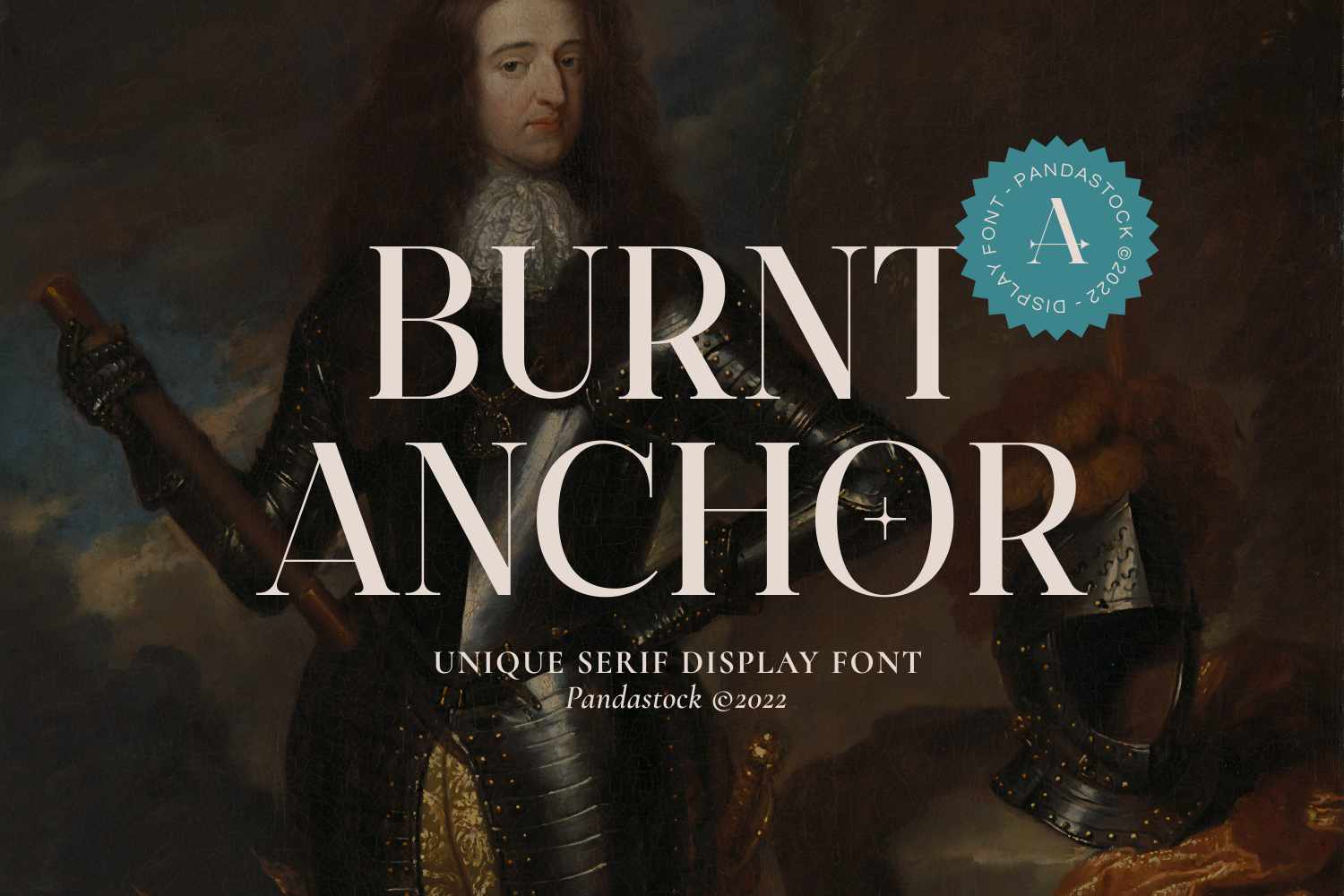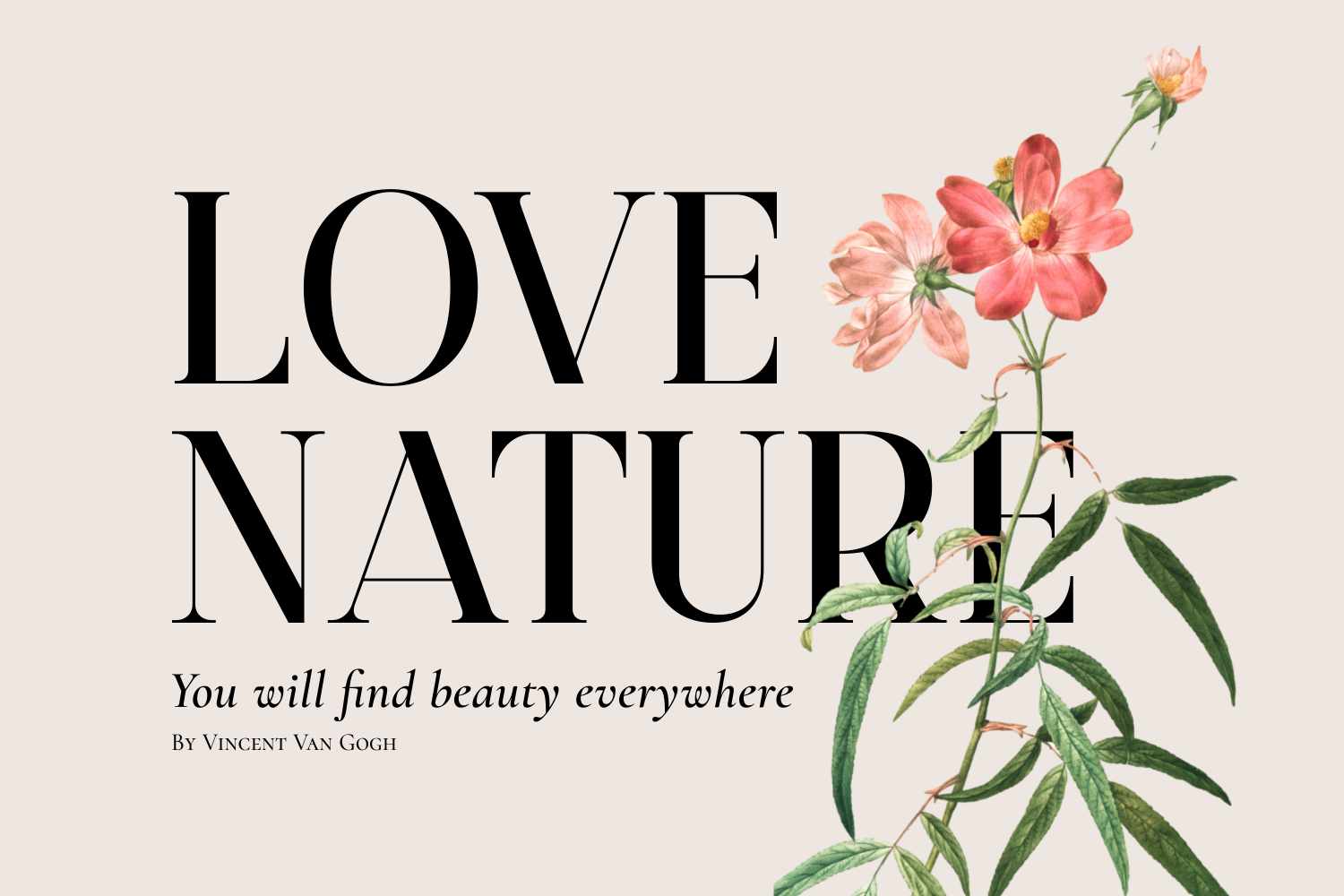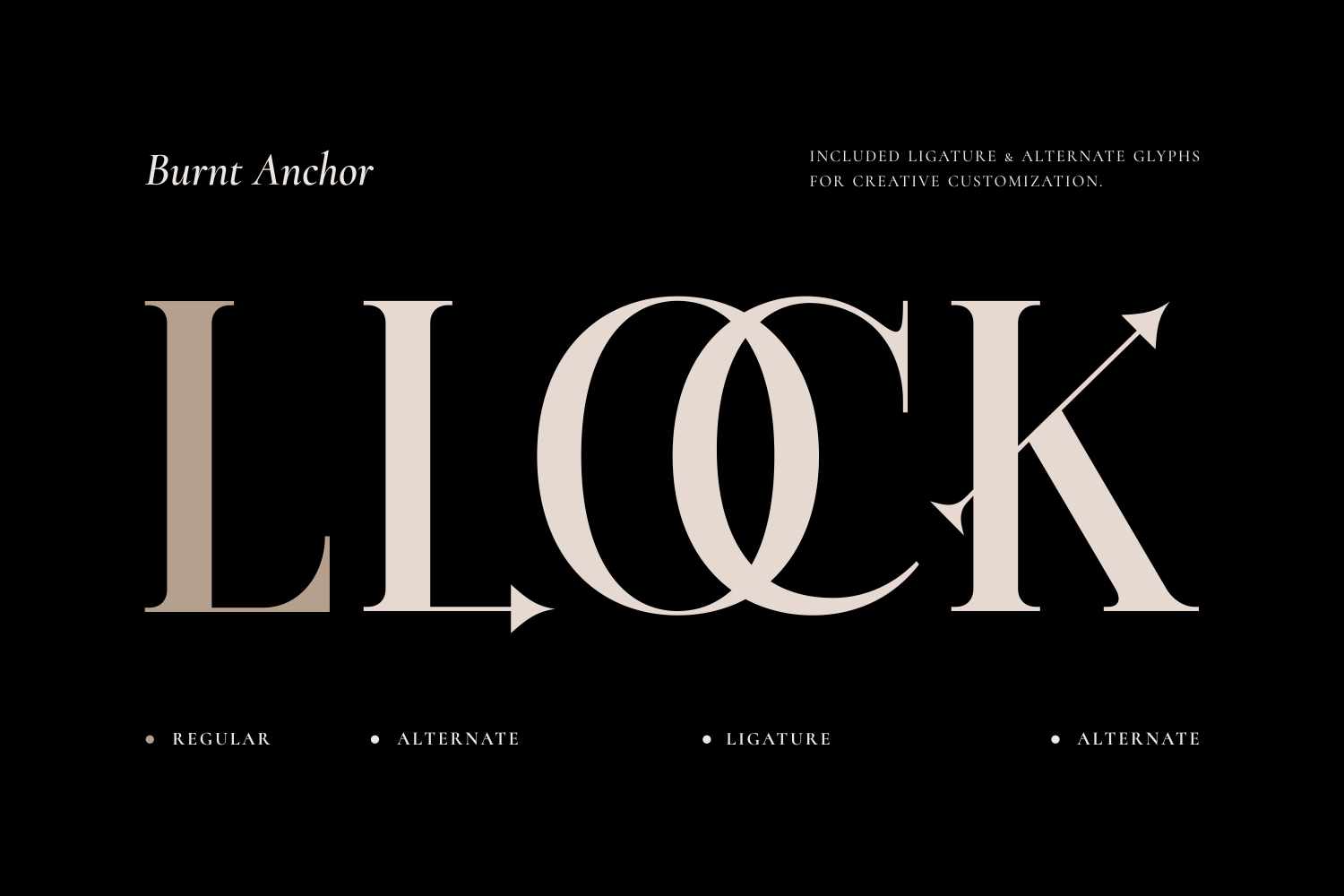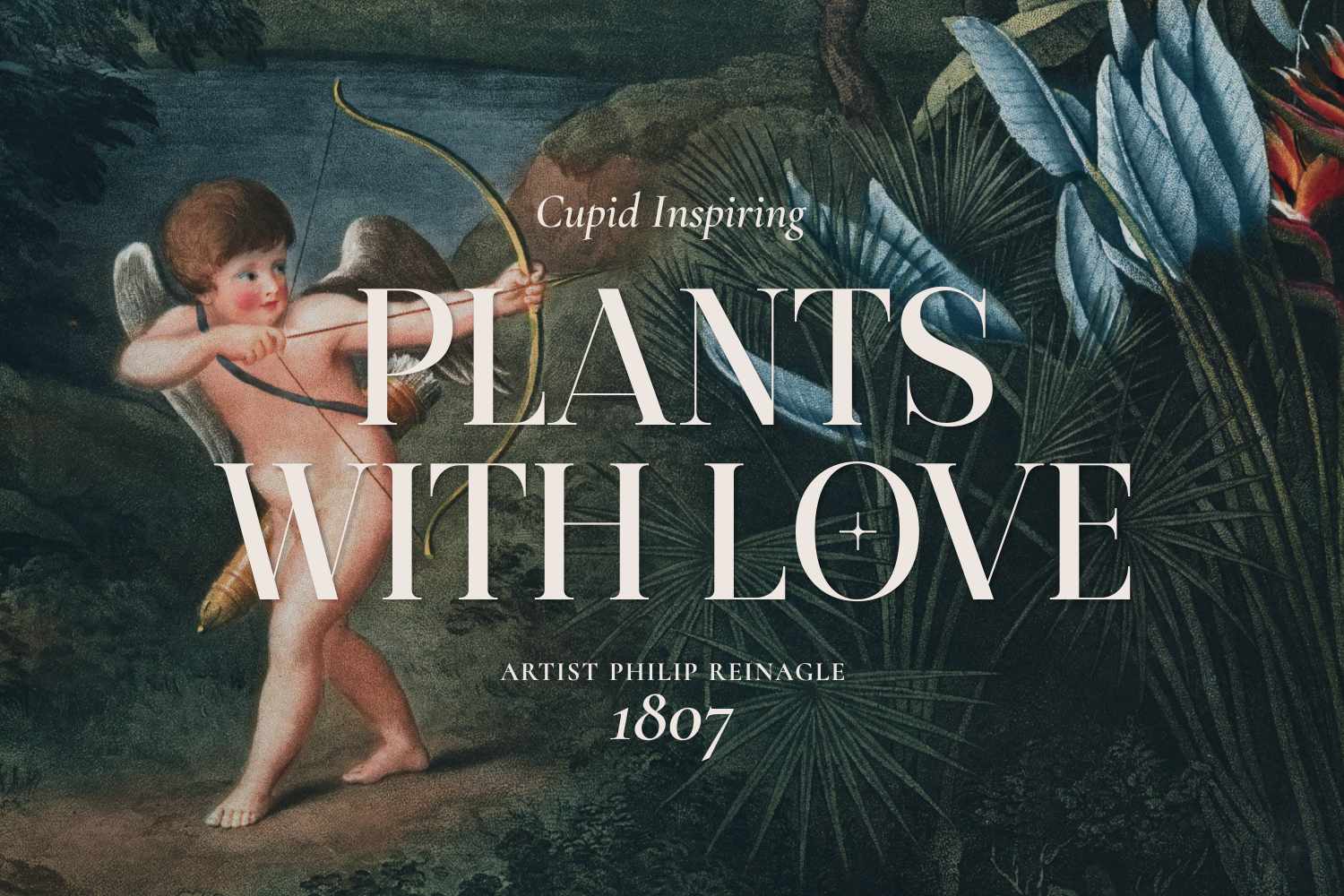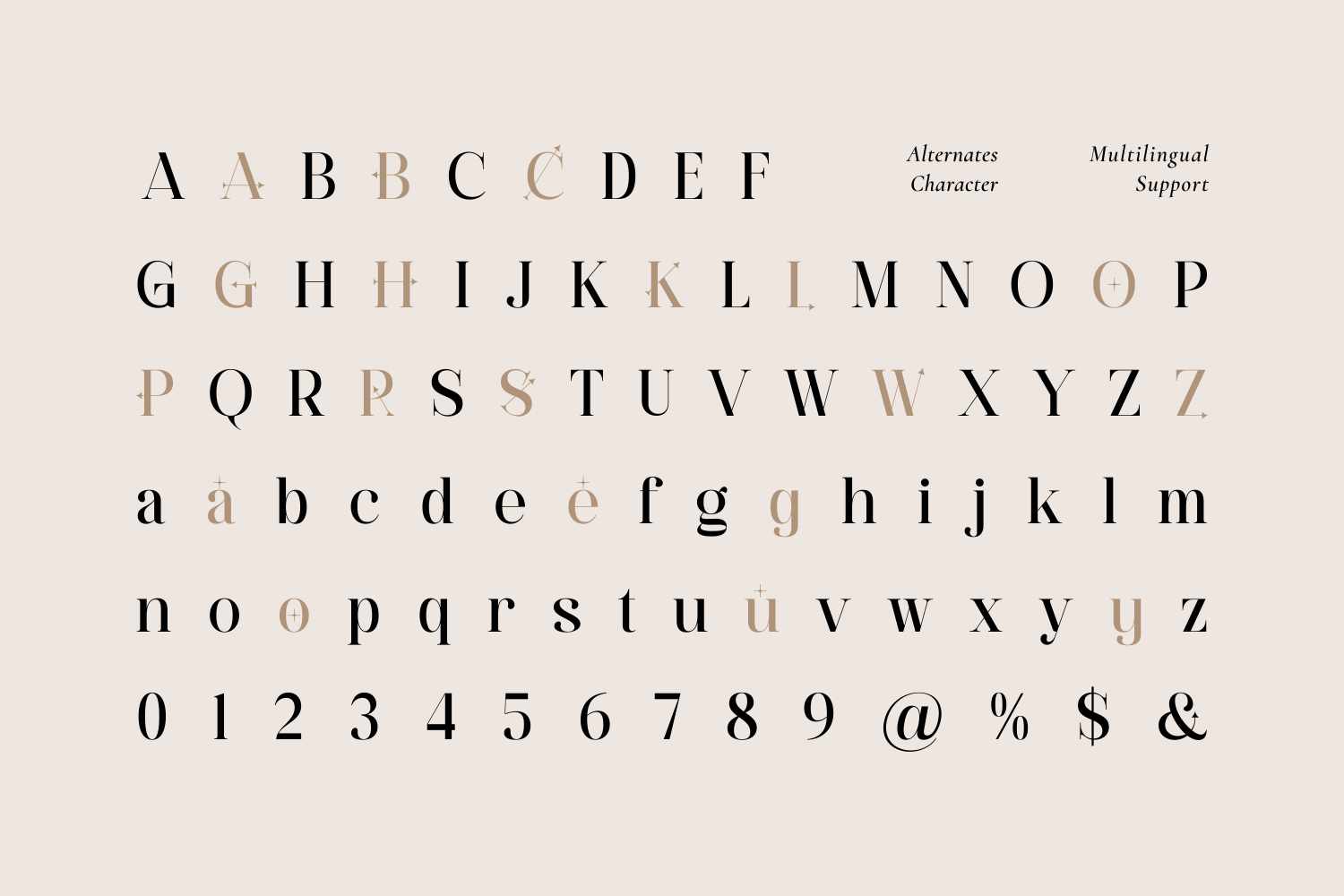
Burnt Anchor is a unique serif display font that combines classical elegance with bold, modern details. Featuring high-contrast strokes, sharp serifs, and artistic alternates, this typeface delivers a sophisticated yet powerful aesthetic. Perfect for luxury branding, cultural projects, magazine titles, and editorial layouts, Burnt Anchor adds a timeless sense of prestige to every design.
With ligatures, alternate glyphs, and multilingual support, Burnt Anchor provides flexibility for creative exploration. Whether you’re designing logos, posters, or high-end packaging, this font ensures a distinctive visual identity that captures attention and elevates your projects with refined style.
Burnt Anchor